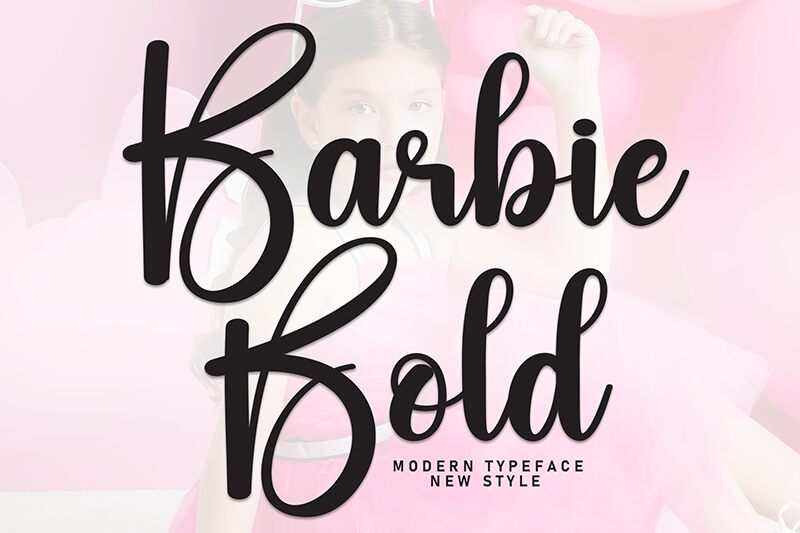
Barbie Bold
Barbie Bold font is a flowing and elegant typeface carefully handwritten by designer Andi Moz. The modern script is highly decorative and stylish with expressive characters that give all written content the right amount of style. With soft features, variations of thickness, and curly edges, Barbie’s gentle flow provides heartwarming vibes to readers.